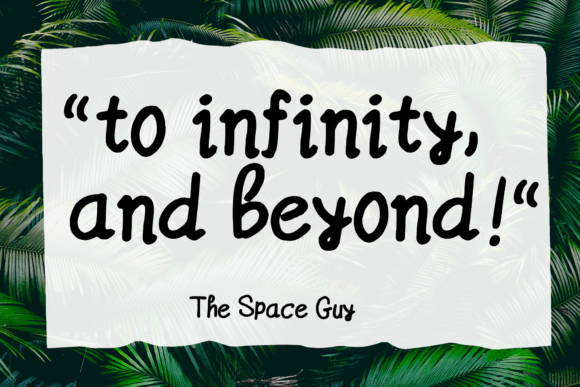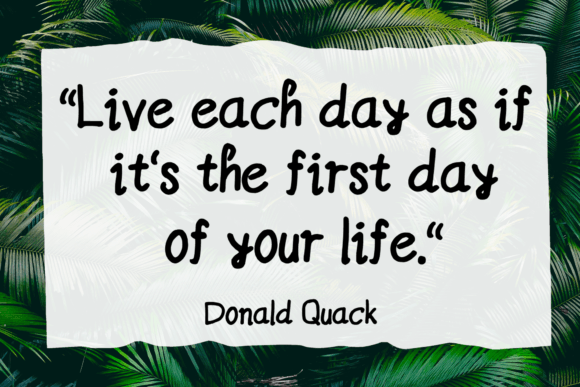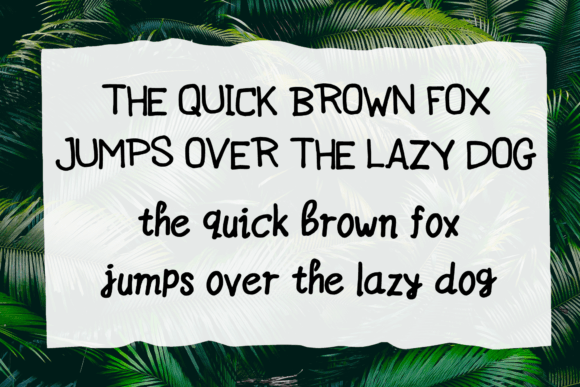
Introduction to Jolly Molly Font
You can’t go wrong with Jolly Molly.
You can use this handwritten font for anything ranging from cartoon-related designs to kids’ school projects, greeting cards, or anything that needs a casual touch Fall in love with its incredibly versatile style and use it to create lovely designs.
Key Features of Jolly Molly Font
Why Choose Jolly Molly Font?
Jolly Molly Font offers exceptional quality and versatility, making it a valuable addition to your design toolkit. Whether you’re creating for personal projects or commercial use, Jolly Molly Font delivers professional results.